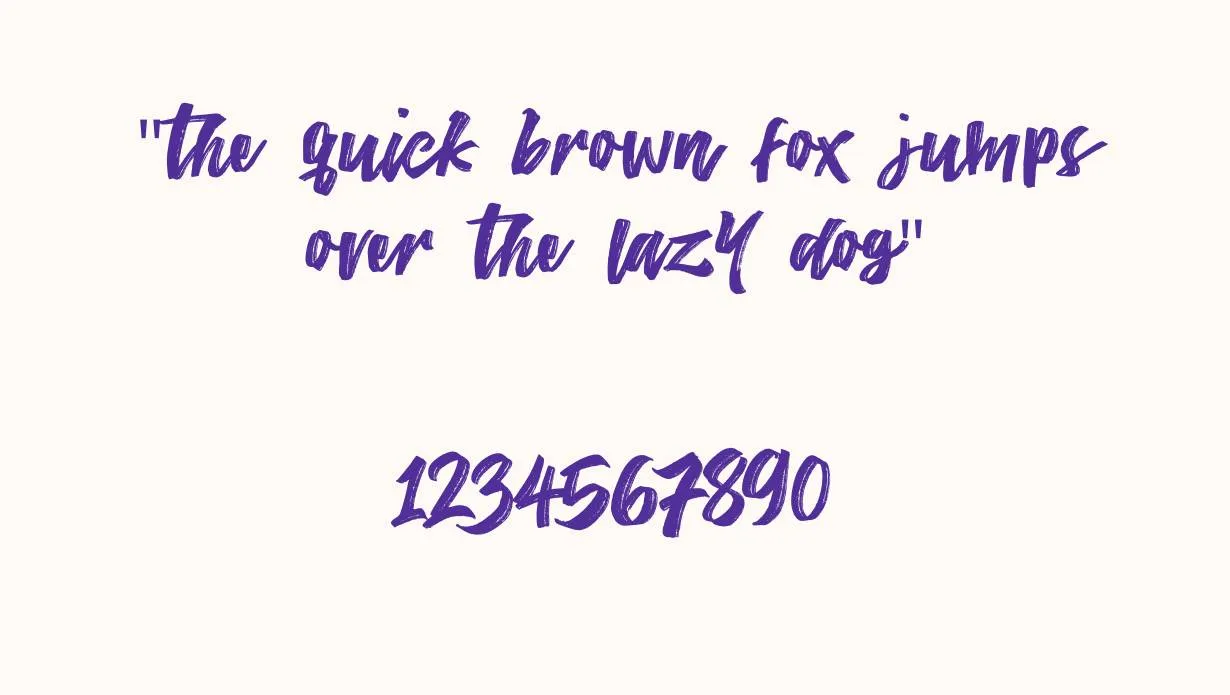
The Conquer Brush Font radiates energy and creativity with its bold and dynamic style. Its textured strokes add a powerful and expressive flair to designs, making it the perfect choice for those seeking a vibrant and impactful look. Delve into this font to bring your creations to life and stand out from the crowd with its unique charm and character.
| Name | Conquer Brush Font |
| Designer | Dirtyline Studio |
The weight of the brush strokes adds impact, while the medium width ensures readability. Conquer Brush Font is a go-to for projects that demand a modern and edgy vibe, such as posters, album covers, or any creative endeavor that aims to make a statement.